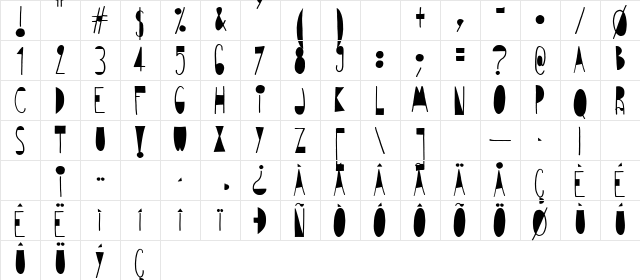
Avantgardiste 1934 Regular
Design Context for Avantgardiste 1934
Avantgardiste 1934 is a composed and adaptable typeface that performs quietly and consistently across a wide range of design contexts.
Pro Tip: Use Avantgardiste 1934 in both headline and body roles to test its range before committing to a single application.